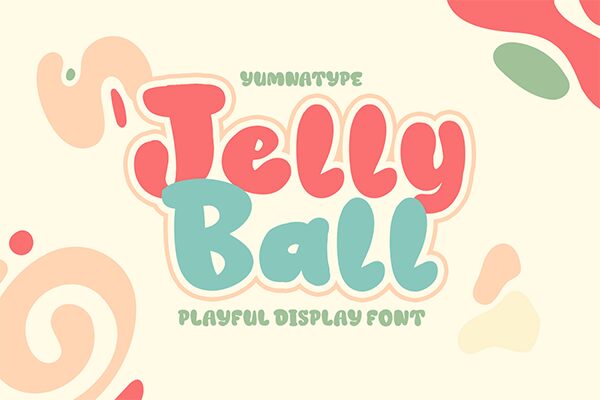
Jelly Ball font by Yumna Family is a groovy display font with an organic, friendly feel. The bold style, rounded curves, and casual lines give this handwriting typeface its joyful nature. Approachability and friendliness are the main values this font can bring to your next design creation.
Free for personal use, consider Jelly Ball for advertising projects like product packaging that needs an optimistic vibe, stationery items, informal invitations or messages etc. Use it in creative blog entries or as part of business branding especially if the business promotes itself on fun and friendly terms. Use it for typography art as well!